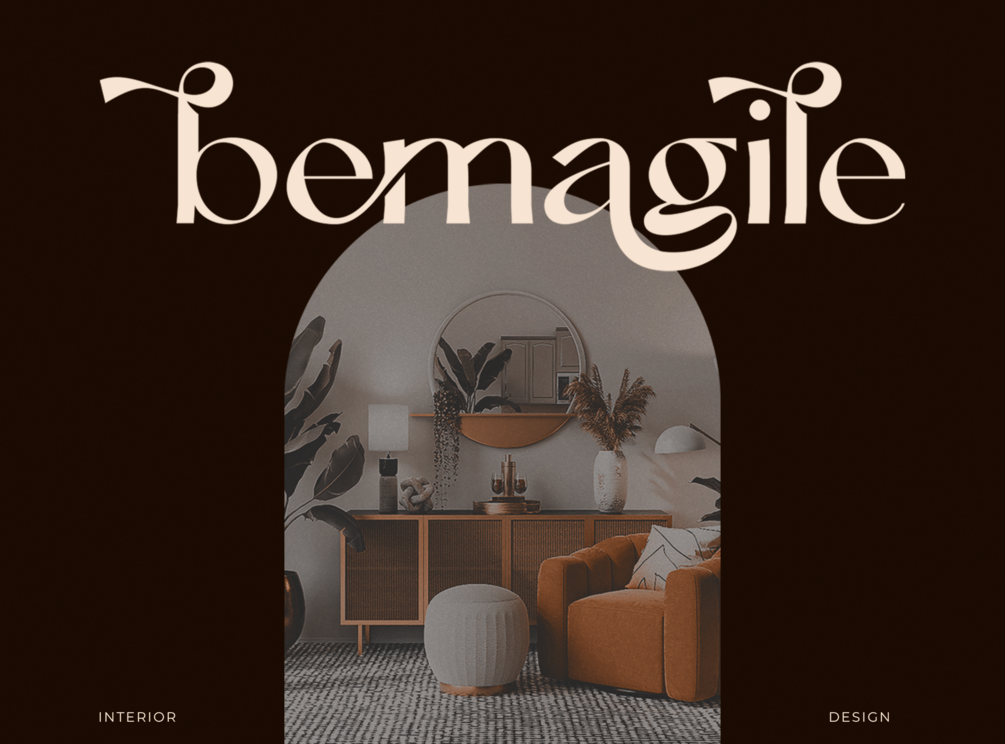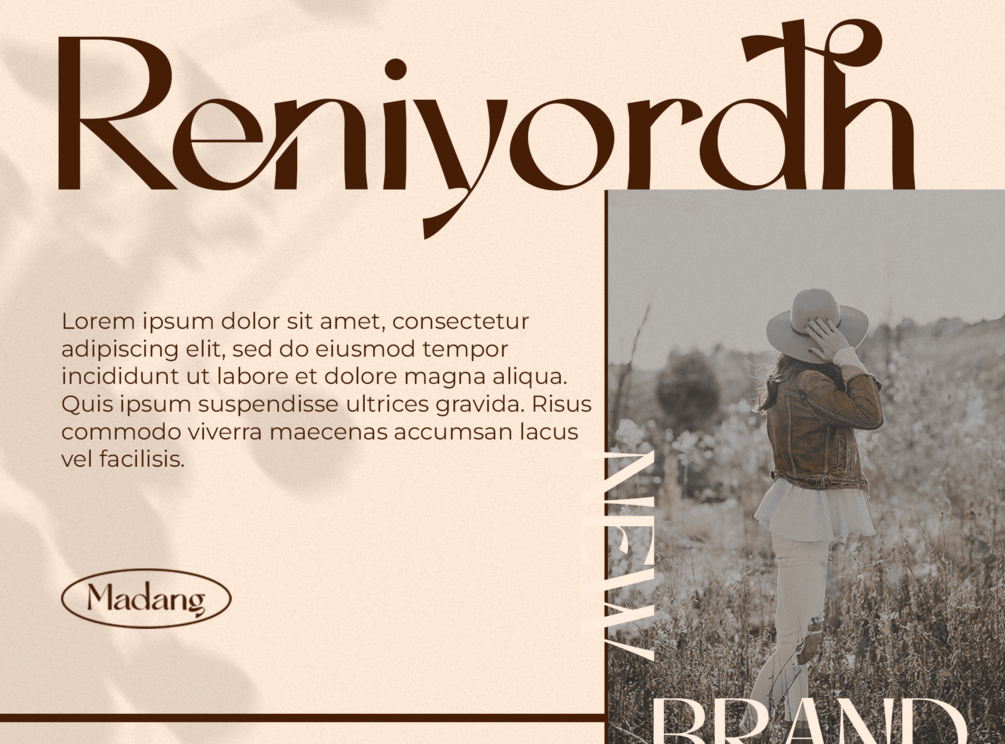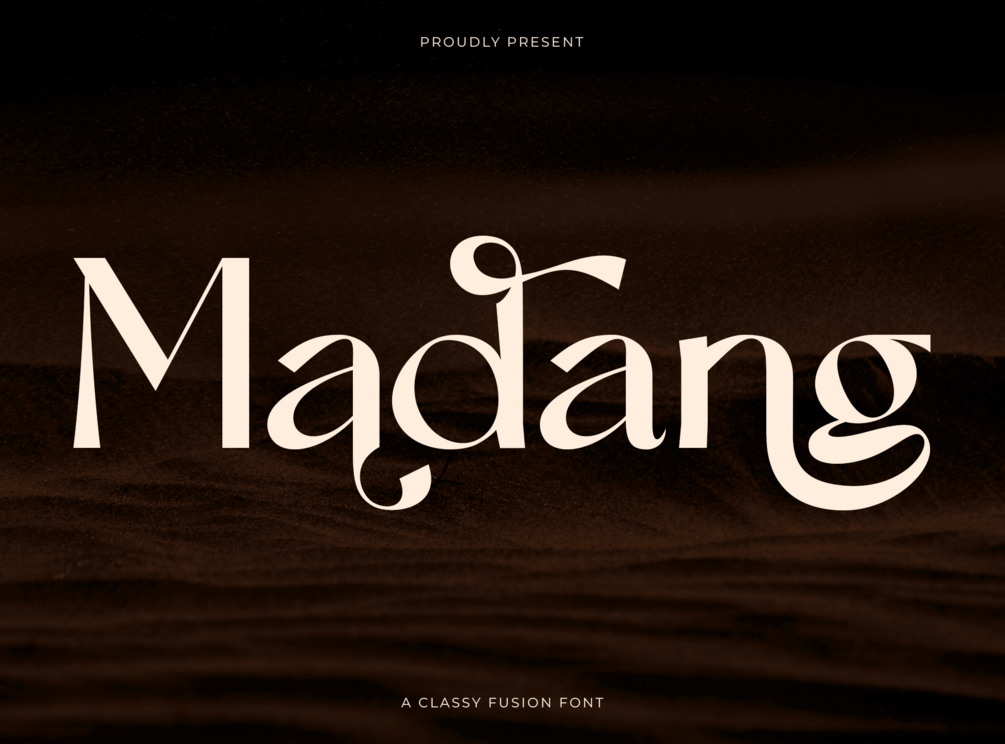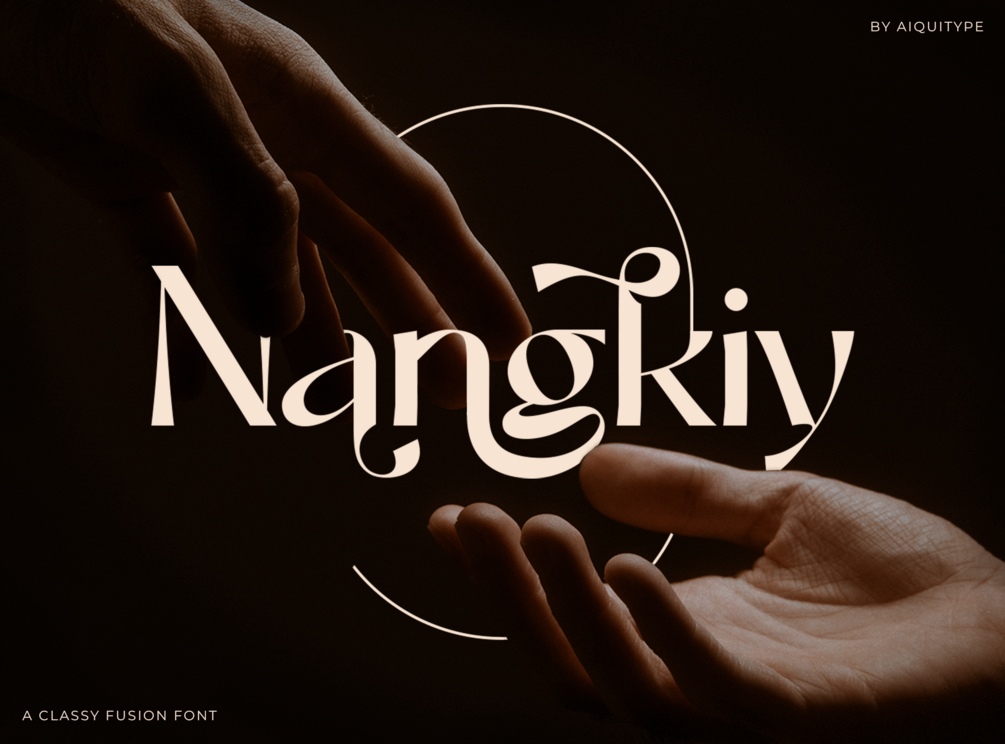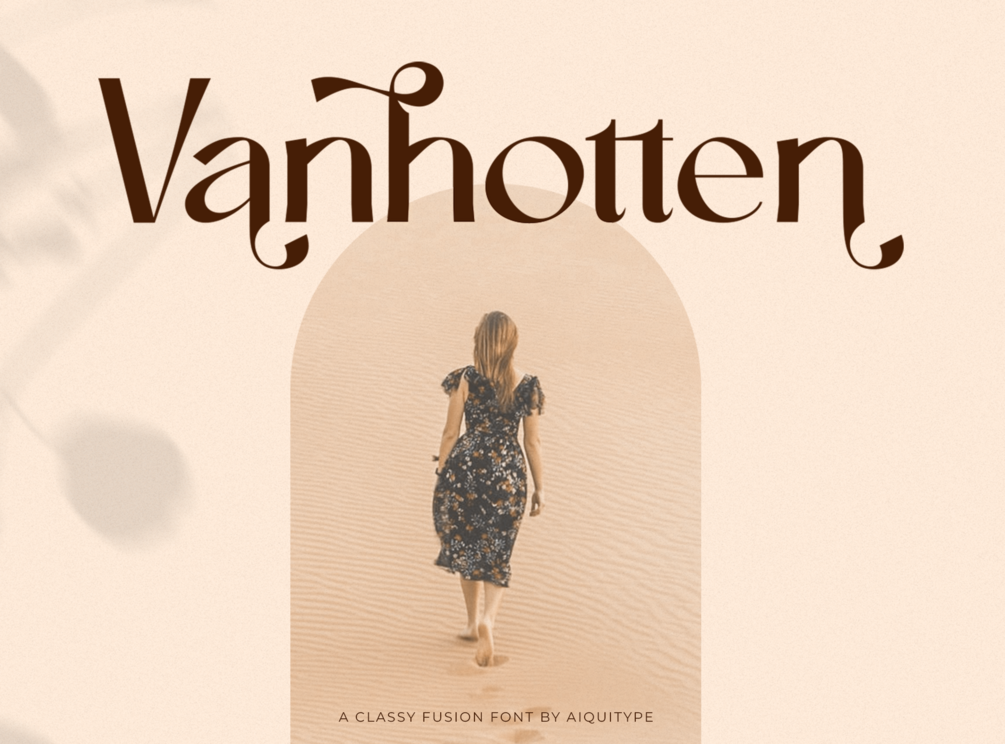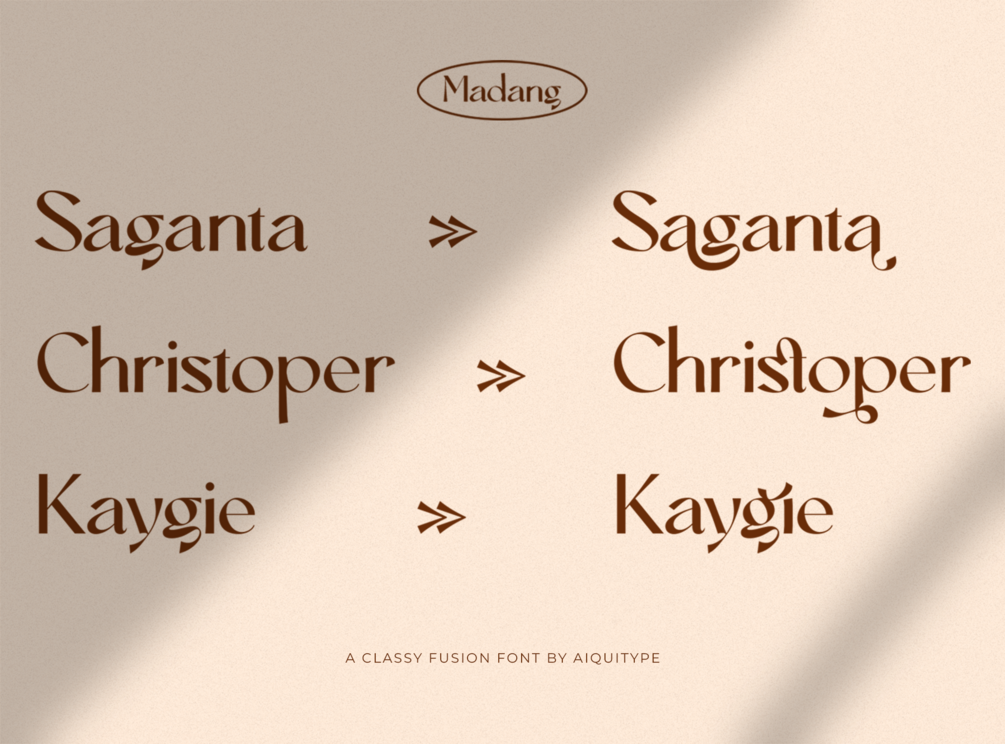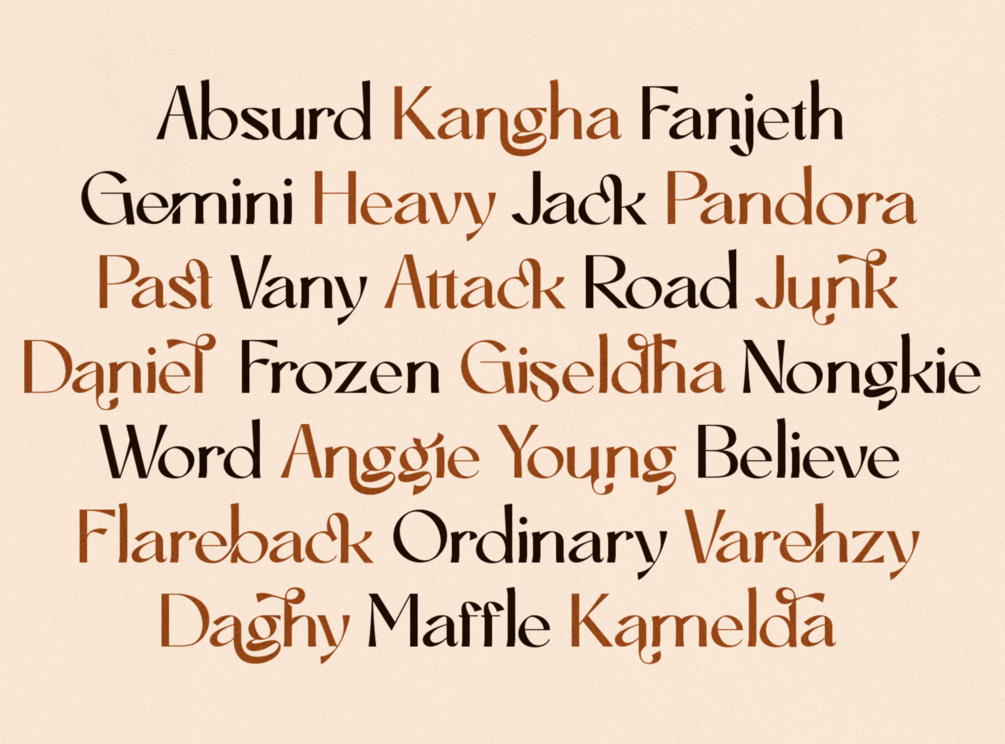
Madang - Classy Fusion Font
Introducing.
Madang Font is a sophisticated fusion of classic elegance and modern flair. With its meticulously crafted letterforms, it exudes a timeless charm that effortlessly captivates the eye. The balance between its refined strokes and contemporary elements encapsulates a sense of versatility, making it a perfect choice for a wide range of creative projects. Whether used in headlines or body text, Madang Font's graceful presence lends an air of distinction and refinement to any design, establishing itself as an essential asset for discerning typographers and designers alike.
1.      Uppercase, Lowercase, Number, Symbols and Punctutation
2.      Ligature and Alternates